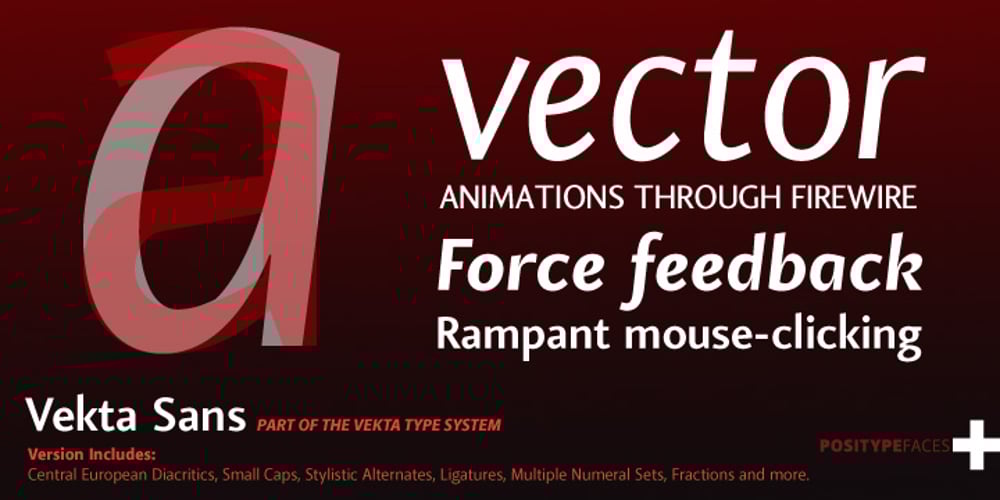
Vekta Sans
Vekta Sans font
Vekta Sans Font Family was designed by published by Positype. Vekta Sans contains 8 styles and family package options. The Vekta Type System is part of a larger, interconnected grouping of 3 families: Neo, Sans and Serif. The goal was to develop a family designed along a common skeleton and matrix that would allow for interchangeable usage along a cohesive visual system. It’s About The Personality. Interchange type families to be as expressive as you want to be. Let the piece you are designing constrain your usage and not the typeface.